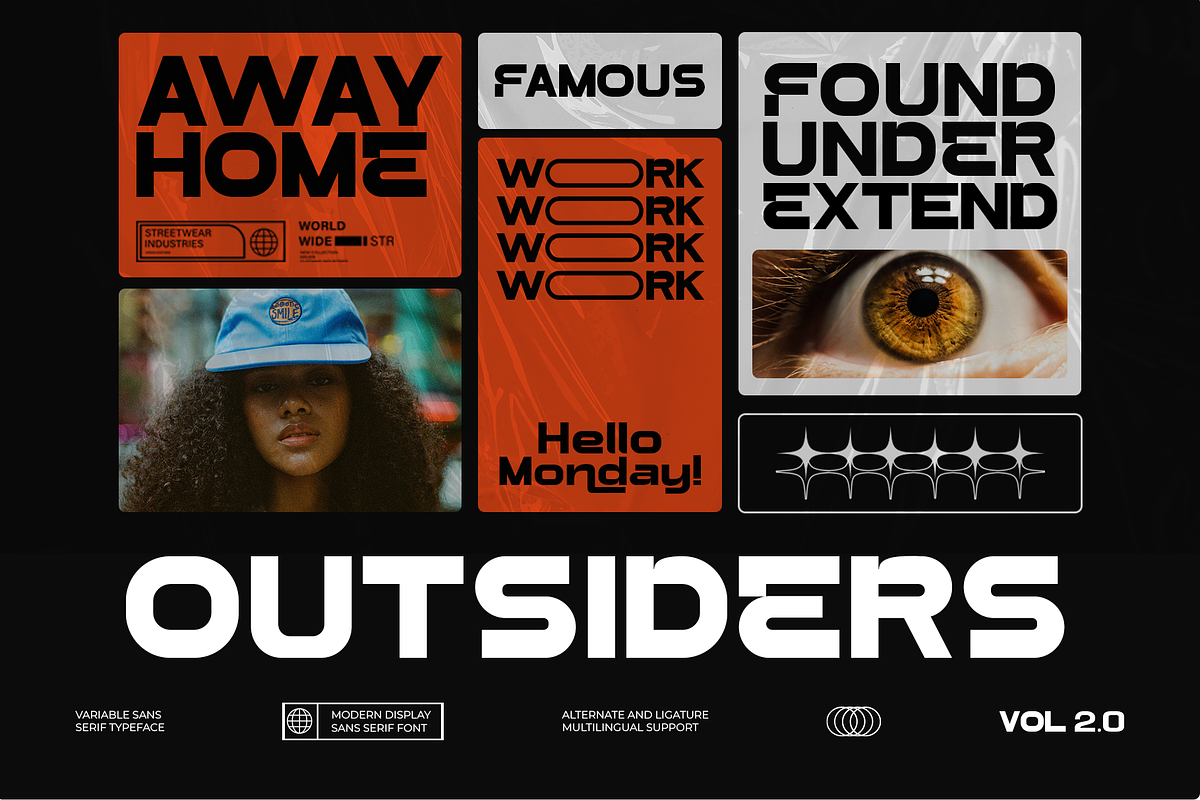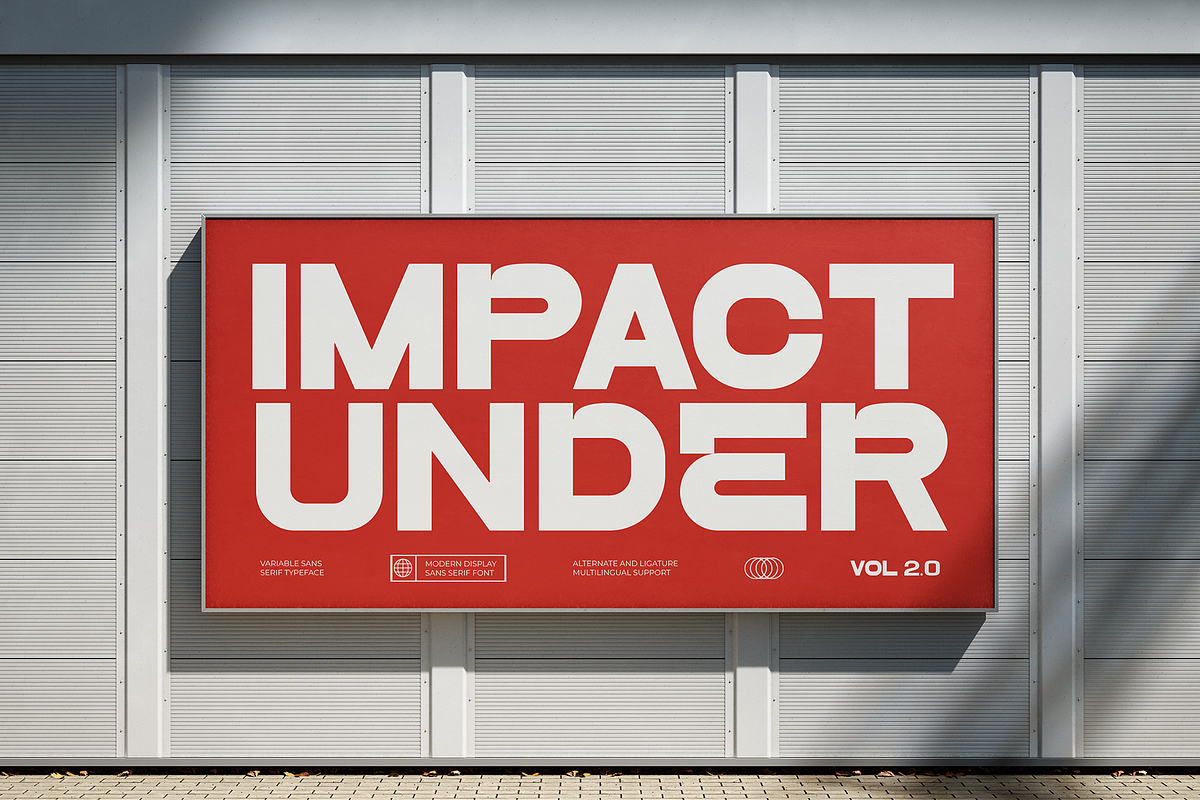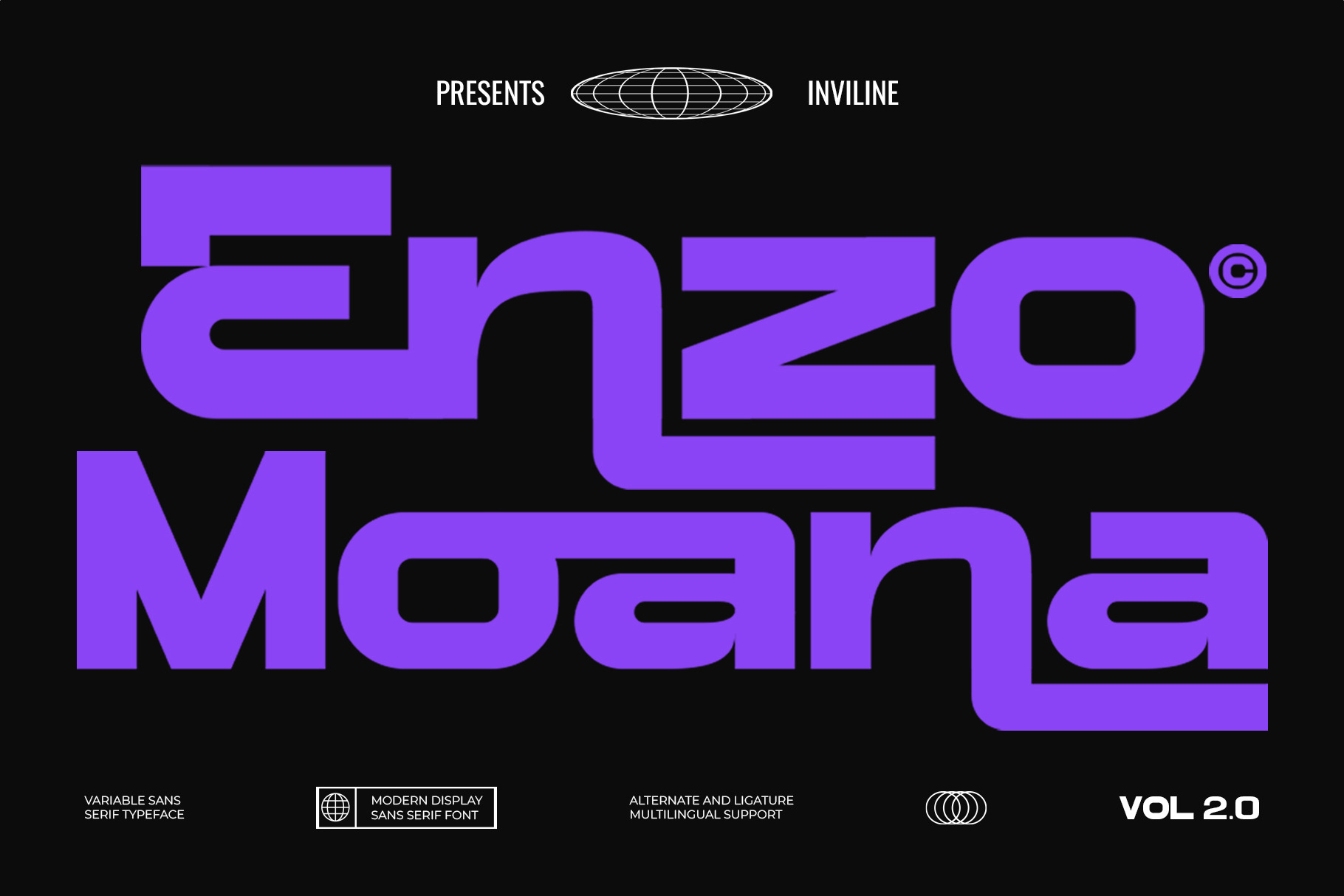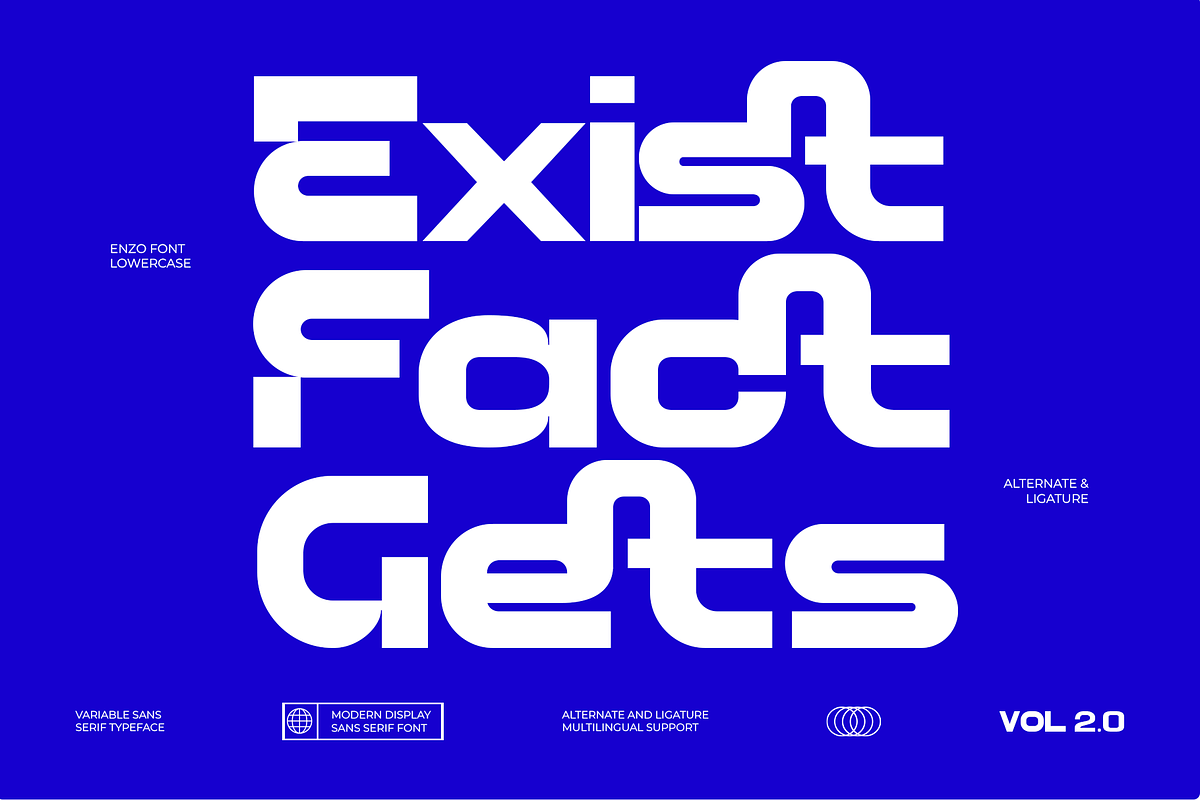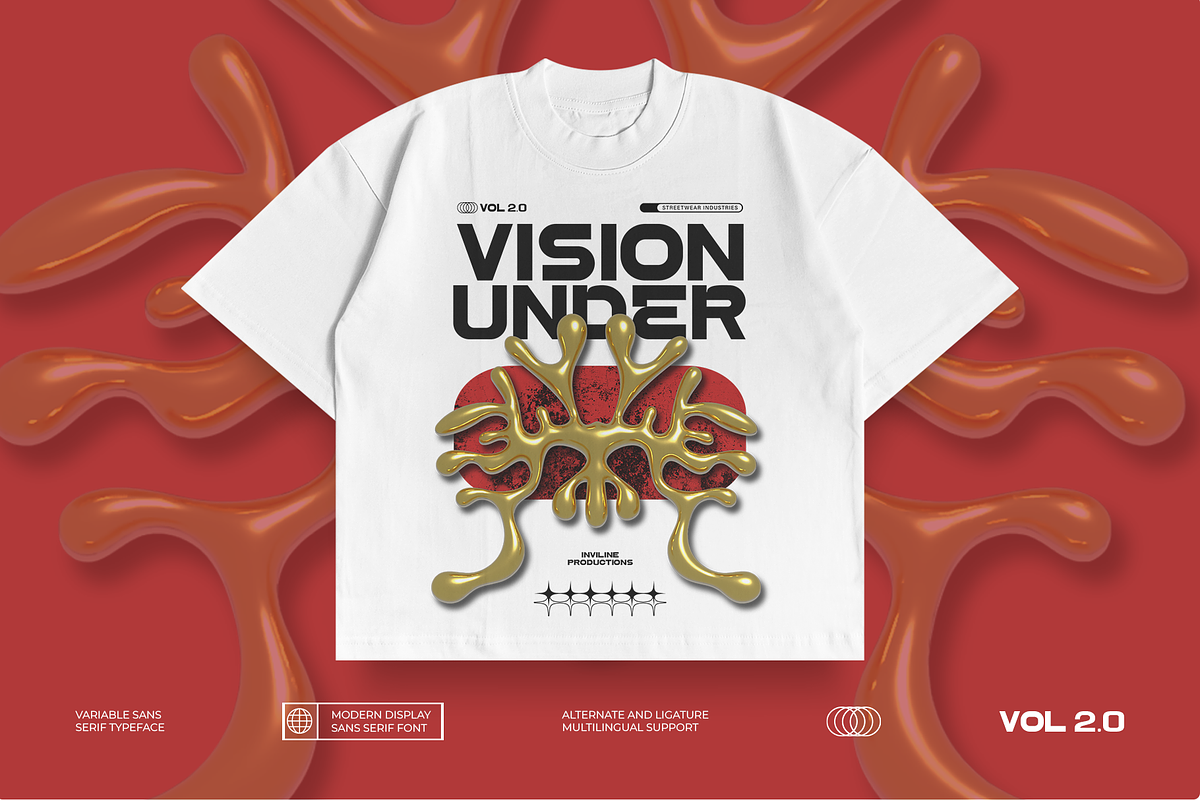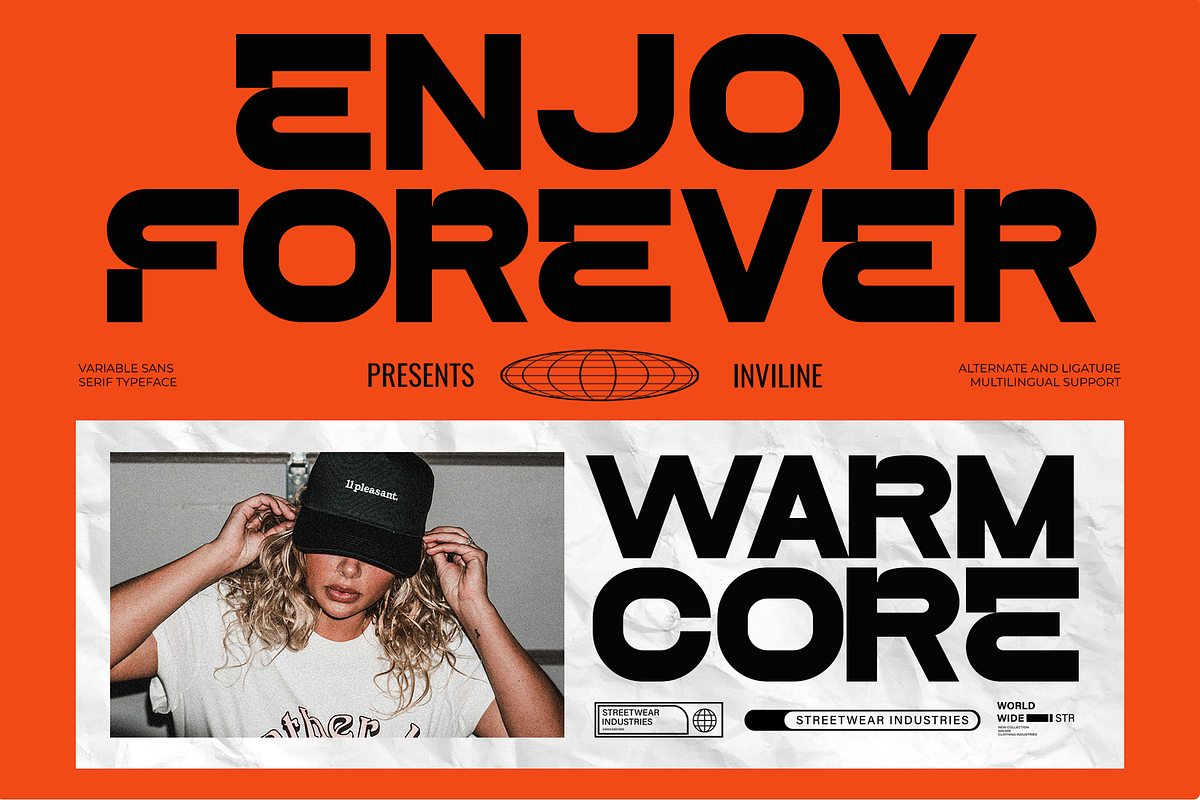
Enzo - Extended Bold Typeface
Enzo Moana is a bold variable sans serif typeface inspired by futuristic graphics, digital culture, experimental editorial design, and contemporary technology branding.
Its wide proportions, geometric construction, rounded corners, and unconventional letter shapes create a distinctive visual identity that feels progressive, energetic, and highly recognizable. Enzo Moana is designed for projects that need strong visual impact and a modern experimental personality.
Overview
Enzo Moana combines an extended sans serif structure with modular shapes and expressive alternate characters. The wide letterforms produce a confident display presence, while the variable font system offers flexibility for building different levels of emphasis within a coordinated typographic system.
The typeface works especially well for large headlines, logos, campaign titles, posters, website hero sections, music artwork, and technology-focused visual identities. Its futuristic appearance can be paired with minimalist grids, bold colors, monochrome layouts, 3D graphics, or experimental photography.
Use standard characters for a clean geometric result or activate the included alternates and ligatures to create more distinctive wordmarks and display compositions.
Enzo Moana Variable Sans Serif Font
Futuristic extended sans serif design
Variable font functionality
Bold and wide letter proportions
Modular geometric construction
Rounded and angular character details
Experimental contemporary personality
Stylistic alternates and ligatures
Suitable for high-impact display typography
Strong readability at medium and large sizes
Designed for both print and digital applications
Effective for wordmarks, headlines, and campaign titles
Works well with modern grids and bold graphic compositions
Easy to pair with neutral sans serif or monospace fonts
Stylistic Alternates: alternate forms are included, but the exact characters are not clearly identified in the supplied preview
Ligature Pairs: ligatures are included, but the exact combinations are not clearly identified in the supplied preview
Multilingual Support: Western European characters with diacritics, including À, Á, Â, Ç, É, Ñ, Ø, Ü, and more
Ideal For / Use Cases
Futuristic branding
Technology company identities
Startup branding
Logo and wordmark design
Experimental typography
Editorial headlines
Magazine covers
Music album artwork
Electronic music posters
Festival branding
Gaming identities
Esports graphics
Website hero sections
Mobile application interfaces
UI and UX design
Digital campaigns
Product packaging
Streetwear branding
Creative studio identities
Exhibition graphics
Contemporary posters
Motion graphics titles
Presentation design
Cultural event identities